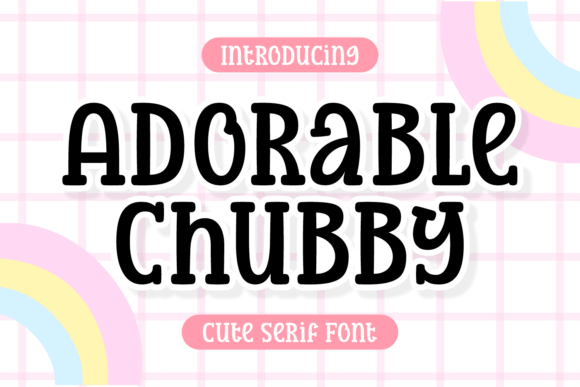
When Words Come to Life
Who hasn’t had that moment where you’re brainstorming ideas and suddenly, a design concept pops into your head? It’s as if the fonts, colors, and textures all come together in a harmonious symphony, making your creative vision shine. For me, that moment happened when I stumbled upon the Adorable Chubby Font.
This playful serif font is bursting with charm and personality, making it the perfect choice for children’s designs, cute branding, fun quotes, and joyful stationery. Its bubbly curves and friendly structure bring a smile to the viewer’s face, making it a valuable asset for designers looking to add a touch of whimsy to their projects.
Adorable Chubby Font Key Features
- Font Family: Adorable Chubby Font
- Unique Characteristics:
- Round and chubby letterforms with a playful touch
- Perfect for children’s books, magazines, and other kid-friendly content
- Also suitable for fashion, food, and lifestyle designs
Adorable Chubby Font Review
At first glance, the Adorable Chubby Font is an absolute delight. ✨ The playful, rounded edges of the letters make it perfect for creating a whimsical and childlike atmosphere in your designs. It’s a great choice for projects like children’s books, nursery decor, or even candy packaging.
The font also works well for adding a touch of nostalgia, evoking memories of simpler times. ✨ Its chunky texture makes it stand out from more minimalist fonts, adding a sense of visual interest to your designs.
While the Adorable Chubby Font is a fun and quirky addition to any design, there are some limitations to consider.
- ⚠️ The font may be too playful for more serious or professional projects, and could detract from the overall tone you’re trying to convey.
- ⚠️ The chunky texture can also make the font difficult to read at smaller font sizes, so be sure to test it out in different contexts.
- ⚠️ The font may not be suitable for projects that require a high level of precision or technical accuracy, such as infographics or instructional materials.
Overall, the Adorable Chubby Font is a fun and versatile addition to any designer’s toolkit, but be sure to use it thoughtfully and in the right context.
Adorable Chubby Font: A Practical Application Guide
Getting the Most Out of Adorable Chubby Font
To get the most out of Adorable Chubby Font, use it for:
- Food labels and packaging
- Cartoon and comic strips
- Emphasizing playful and whimsical designs
Adorable Chubby Font is commonly used for:
- Body text in children’s books and comics
- Product labels and
Alternatives to Adorable Chubby Font
Great Vibes is a playful, handwritten font suitable for casual and creative projects. It’s ideal for social media graphics, posters, and advertisements. Great Vibes is more elegant and refined compared to Adorable Chubby Font, which has a more childlike and rounded feel.
Lobster is a cursive font with a touch of sophistication. It’s perfect for headings, titles, and branding. Lobster has a more mature and luxurious feel compared to Adorable Chubby Font, which is more playful and youthful.
Pacifico is a beautiful, handwritten font inspired by the Pacific coast. It’s ideal for travel and lifestyle projects, as well as wedding invitations and stationery. Pacifico has a more relaxed and beachy feel compared to Adorable Chubby Font, which is more energetic and vibrant.
Carolyna Pro is a modern, elegant font with a touch of whimsy. It’s perfect for fashion, beauty, and lifestyle projects. Carolyna Pro has a more sophisticated and refined feel compared to Adorable Chubby Font, which is more playful and casual.
Project Ideas Using Adorable Chubby Font
Create a charming bakery menu that showcases the Adorable Chubby Font in a playful and inviting way.
How to use Adorable Chubby Font: Use the font for the menu item names, such as “Fluffy Croissants” and “Choco Chip Cookies”. Combine it with a bold sans-serif font for prices and quantities.
Tips for combining with other design elements: Pair the font with pastel colors and whimsical illustrations of baked goods to create a cohesive look. Use a distressed texture or a watercolor effect to give the menu a hand-drawn feel.